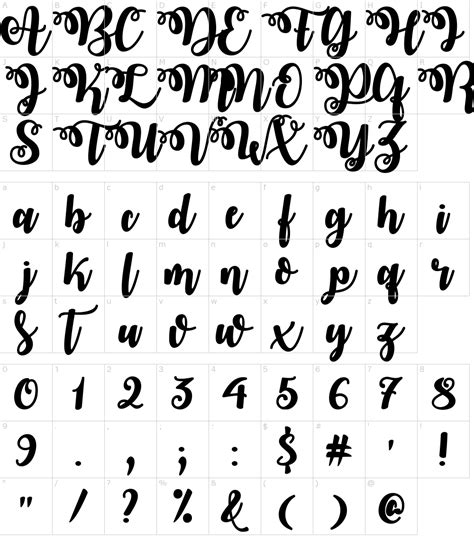
October Twilight Font. Web october twilight is a bouncy, calligraphy font that is perfect for your design and craft projects! The font is designed by misti's fonts and has 25,850.
Web october twilight is a bouncy, calligraphy font that is perfect for your design and craft projects! Web download the october twilight font, a free script font for personal use only. The font is designed by misti's fonts and has 25,850.
The font is designed by misti's fonts and has 25,850. Web october twilight is a bouncy, calligraphy font that is perfect for your design and craft projects! Web download the october twilight font, a free script font for personal use only.